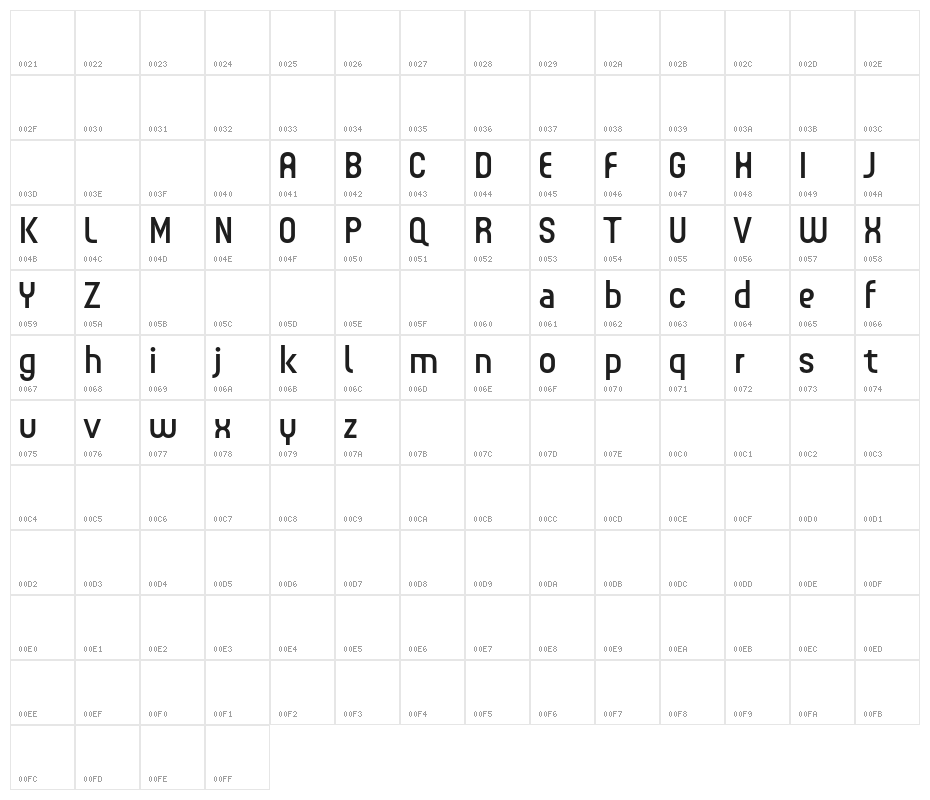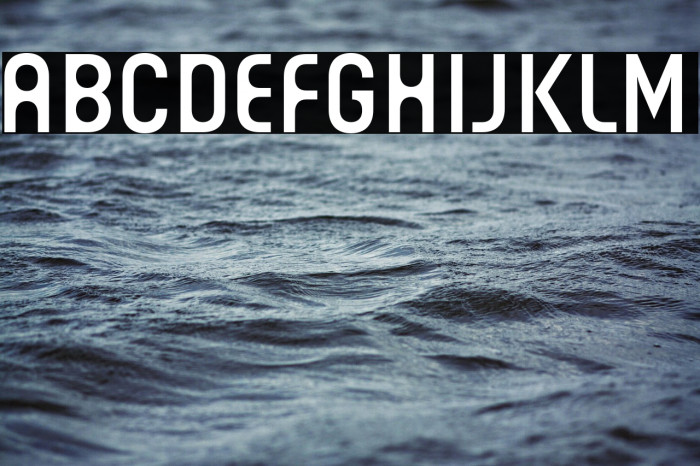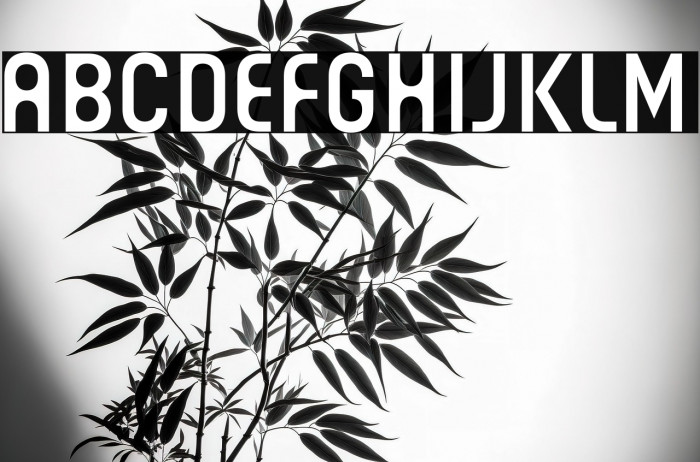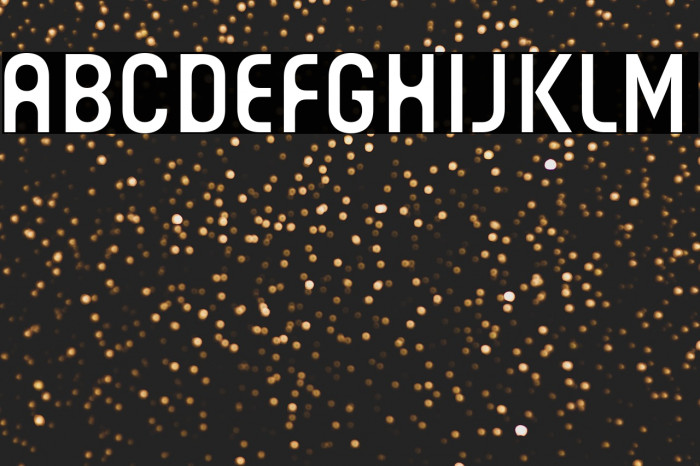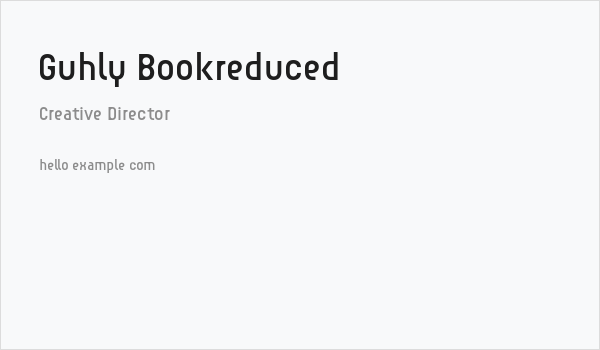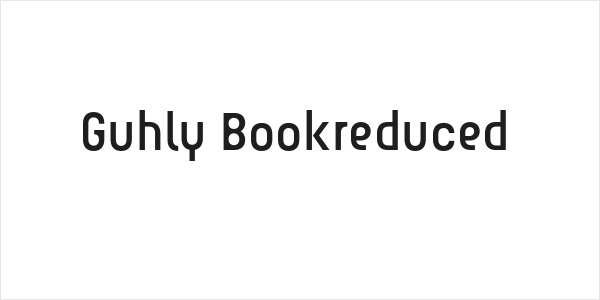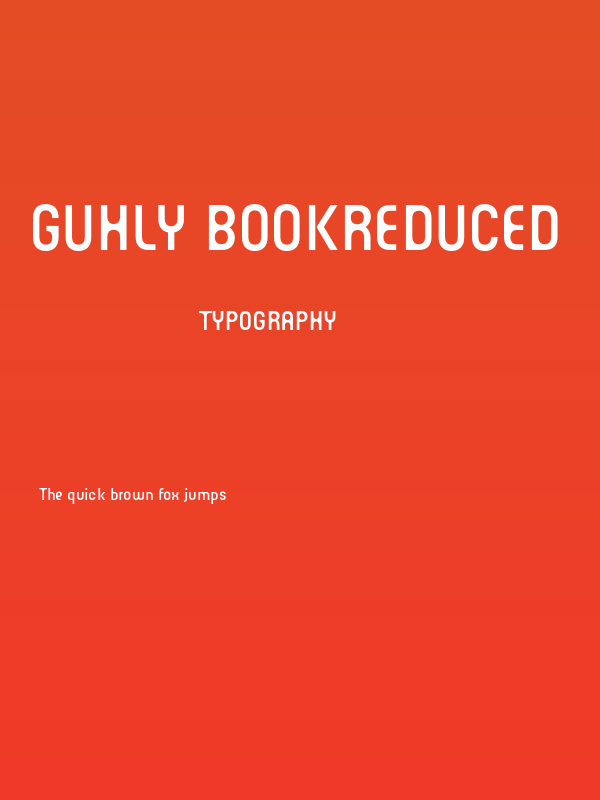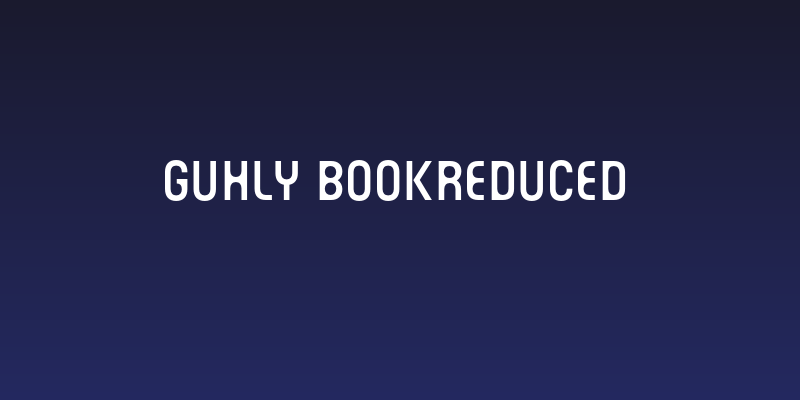
Guhly-Bookreduced Font
Guhly-Bookreduced Description
This font features a modern and clean sans-serif style with a geometric influence. The characters are well-balanced, with consistent stroke widths that provide a uniform appearance. The uppercase letters are bold and assertive, while the lowercase letters maintain a friendly and approachable feel. The numerals are clear and easy to read, making them suitable for various applications. Special characters are designed with simplicity, ensuring they blend seamlessly with the rest of the typeface. Overall, this font offers a versatile and contemporary look that can enhance both digital and print media.